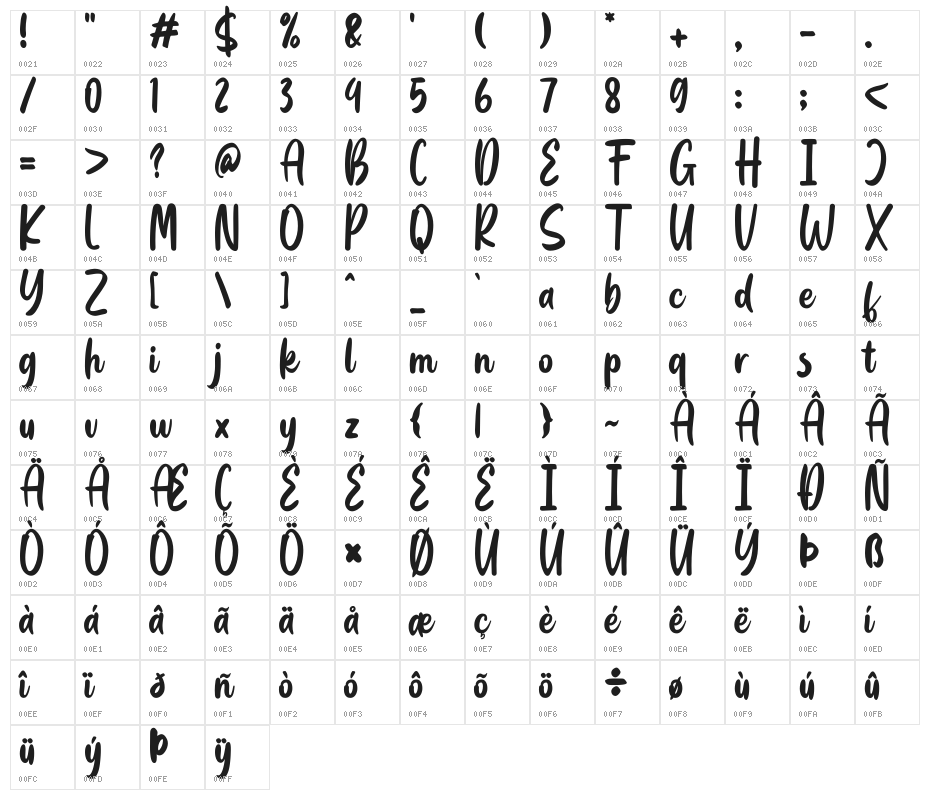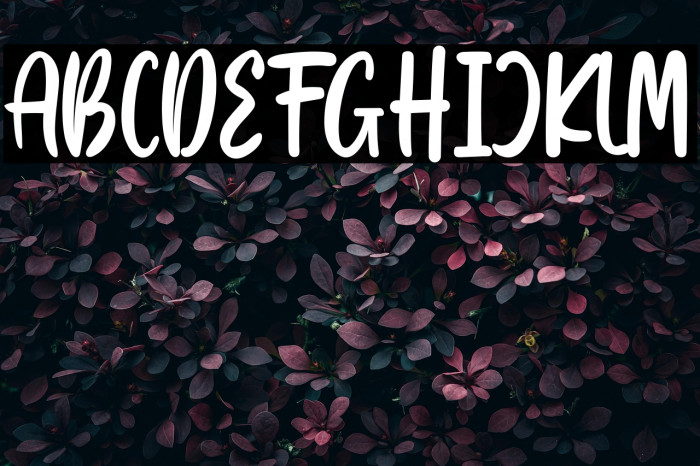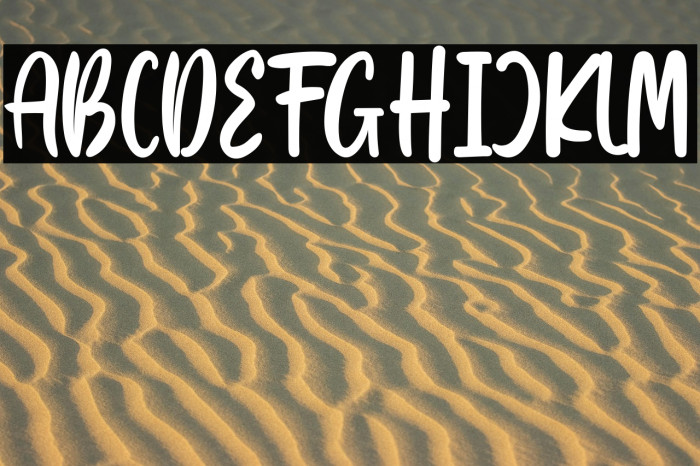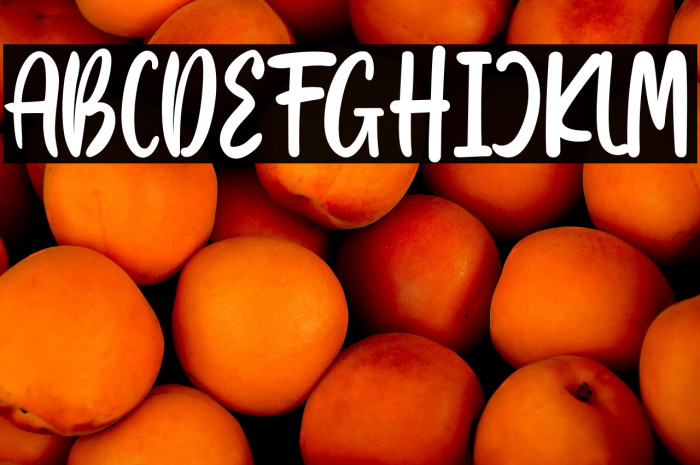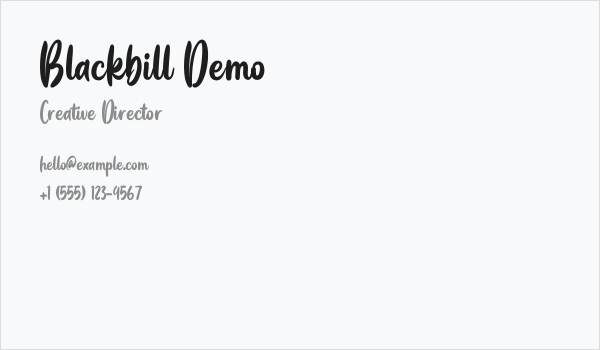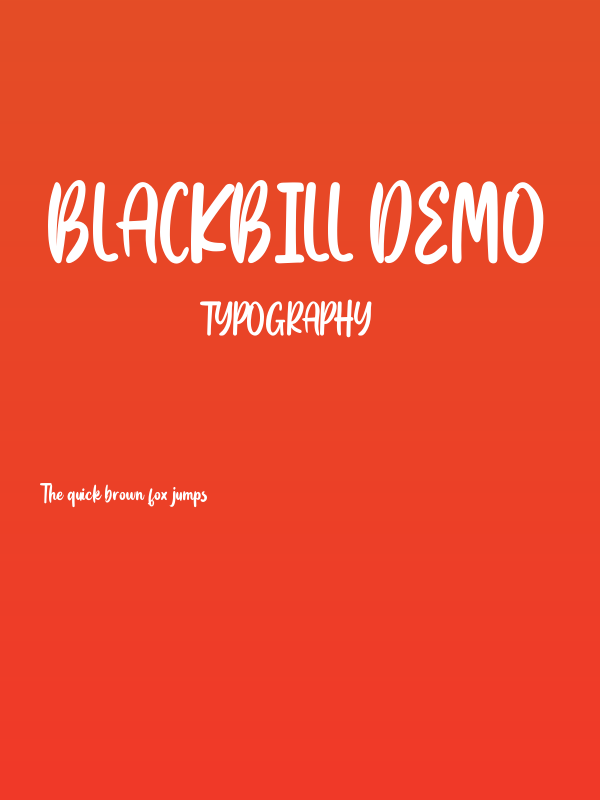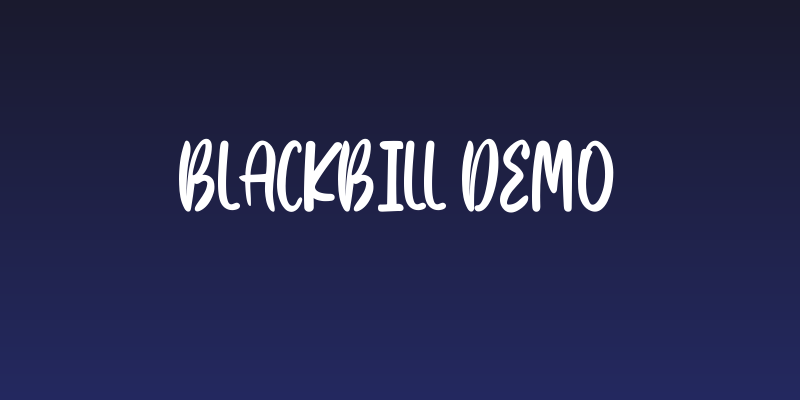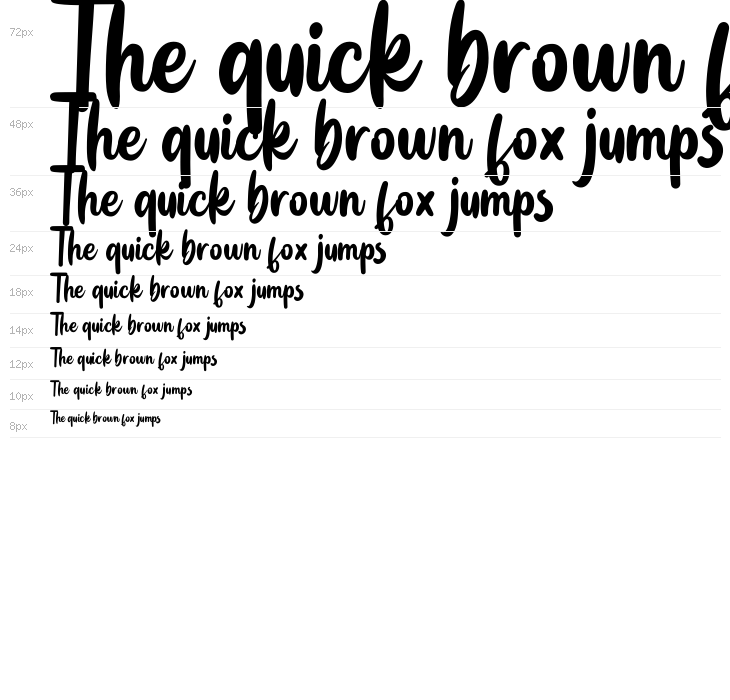
Blackbill Demo Font
Blackbill Demo Description
This font features a bold, handwritten style with a playful and energetic feel. The letters are thick and rounded, giving it a friendly and approachable appearance. The uppercase and lowercase letters maintain a consistent flow, with smooth curves and a slightly slanted orientation that adds to its dynamic nature. The numbers and special characters are equally bold, ensuring legibility and consistency throughout. This font is ideal for projects that require a personal touch or a casual, informal vibe.